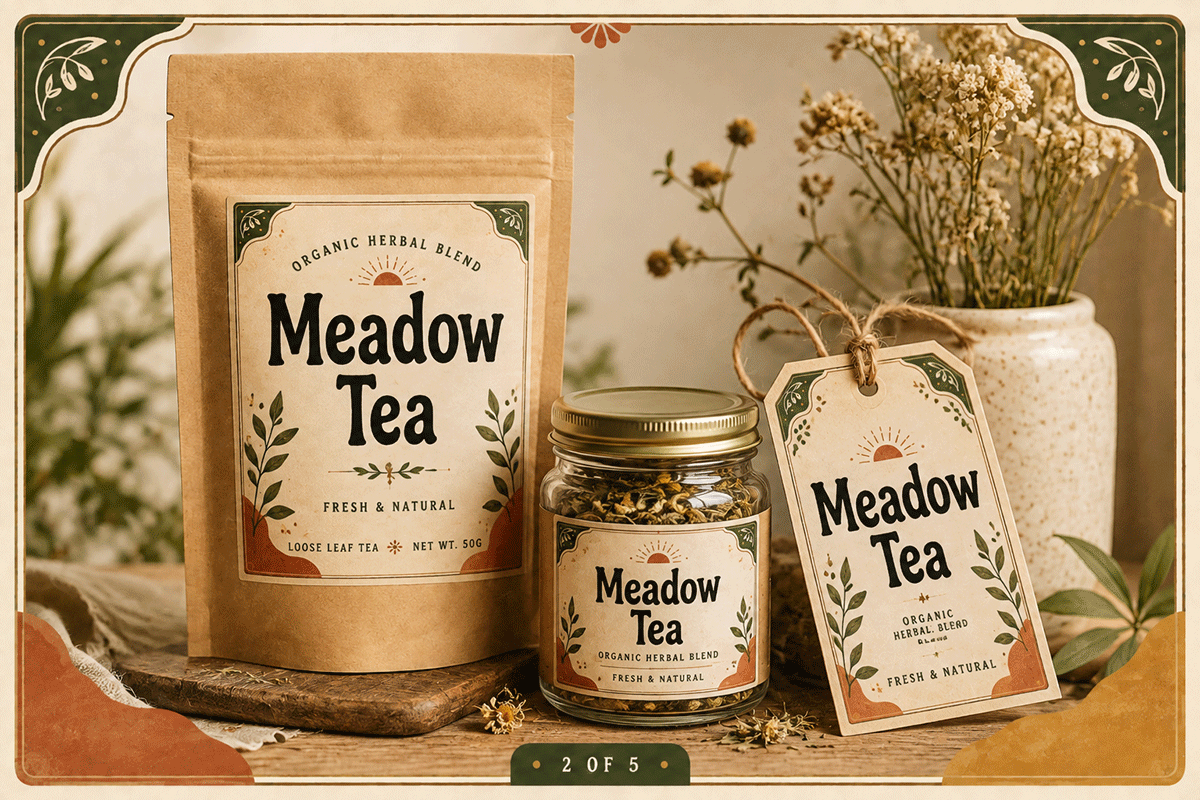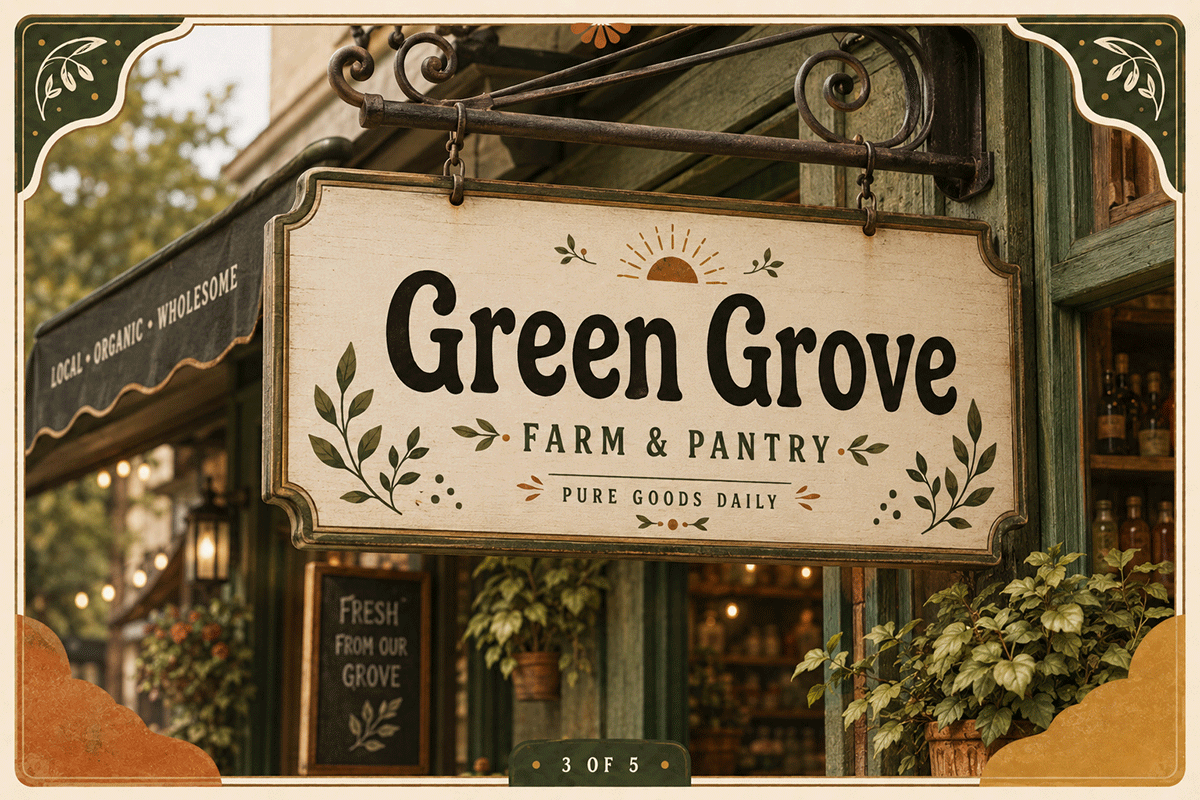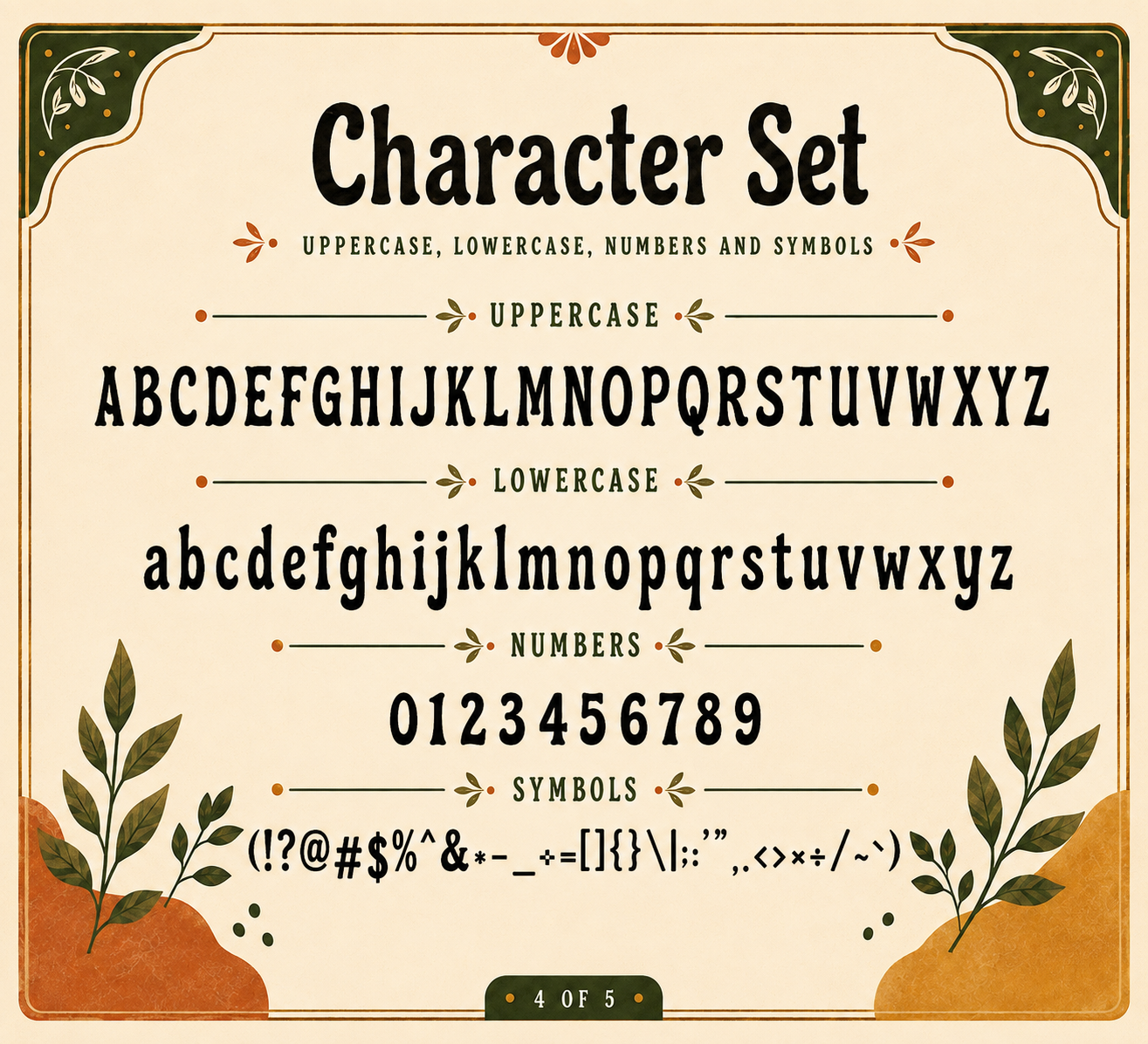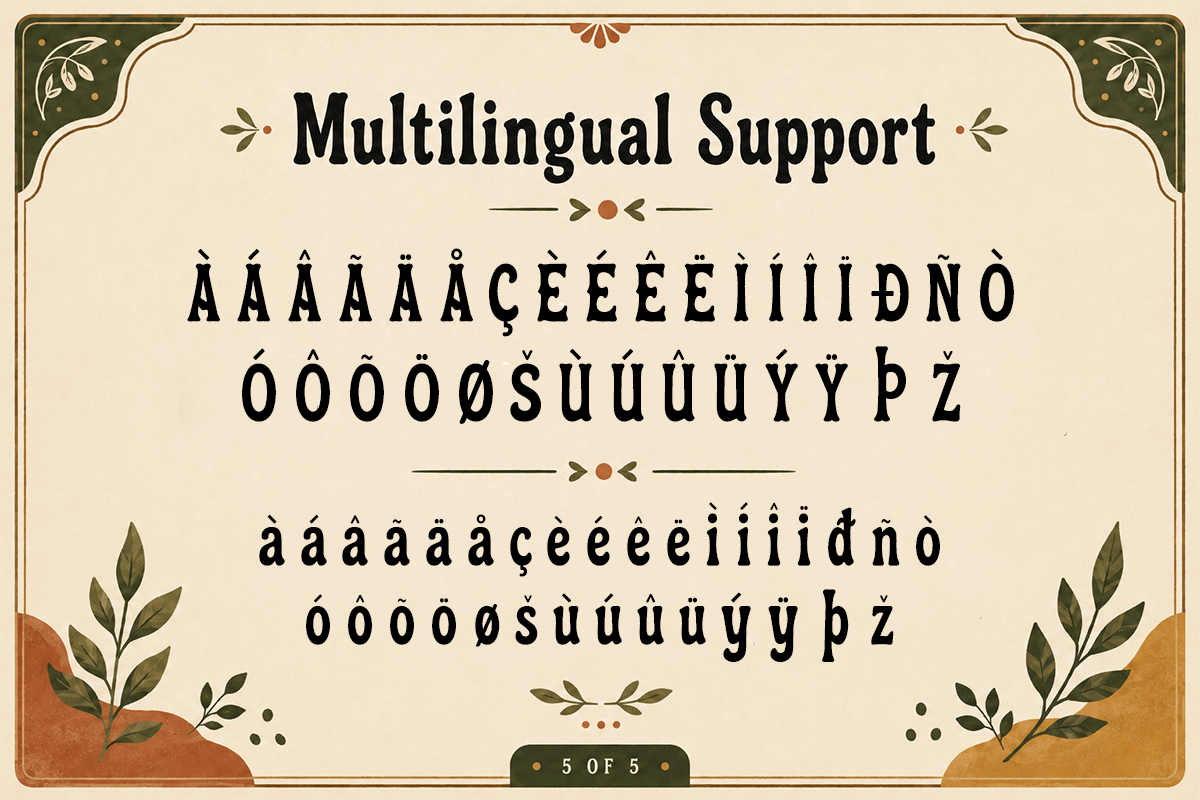
Verdella A Modern Elegant Organic Vintage Font is an elegant organic display font inspired by nature, vintage typography, and timeless handcrafted design. With its graceful curves, distinctive letterforms, and subtle irregular details, Verdella brings a warm, natural, and sophisticated character to every project.
Designed to feel both classic and contemporary, Verdella A Modern Elegant Organic Vintage Font blends soft organic shapes with a strong visual presence. Its unique personality makes it perfect for brands and creative projects that want to express authenticity, beauty, and a refined handmade aesthetic. Whether you’re designing packaging for a natural product, creating a botanical-inspired identity, or adding a vintage touch to your artwork, Verdella A Modern Elegant Organic Vintage Font delivers a distinctive look that feels warm, artistic, and memorable.For our customers, we provide a collection of The Best decorative Fonts, each with its own unique styles and characteristics, so that our customers can create any design they want. We know what our clients love! That is why we prepare everything you may need in one simple downloadable package for you. Our easy-to-grab package contains all of the files you will ever need to create beautiful typography!